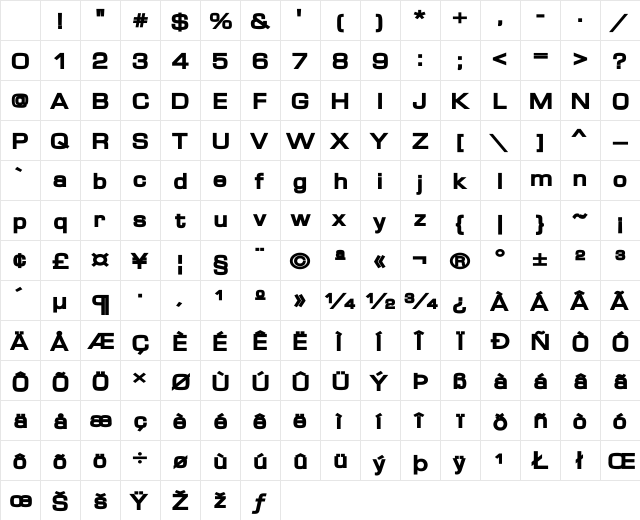
Complete Waukegan LDO Extended Black Regular glyph index. Displaying only characters natively supported by Waukegan LDO Extended Black Regular font.
Waukegan LDO Extended Black is a composed and adaptable typeface that performs quietly and consistently across a wide range of design contexts.
Pro Tip: Use Waukegan LDO Extended Black in both headline and body roles to test its range before committing to a single application.